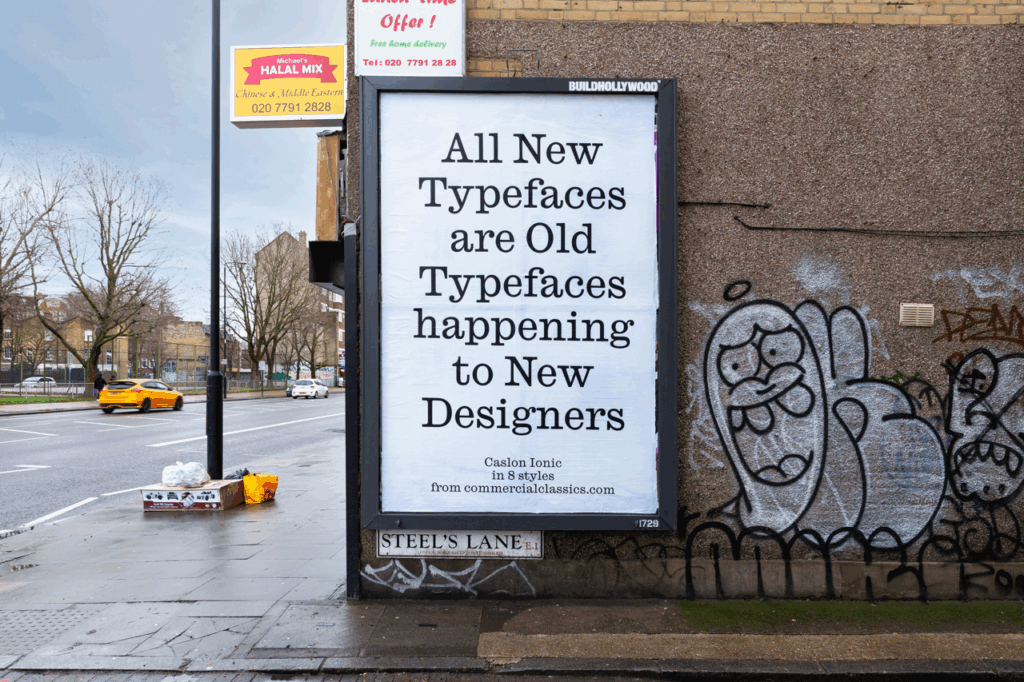
This week’s Baseline Shift session welcomed type designer and Commercial Type co-founder Paul Barnes back to the University of Reading, more than three decades after graduating from the course himself. Paul reflected on his path from studying hand lettering and letterpress printing at Reading to becoming one of the most influential contemporary type designers working today, creating typeface identities for major clients including The Guardian, Givenchy, The National Trust, Rapha and the V&A.
Early influences
Paul’s love for typography stemmed from physically constructing layouts and lettering by hand back before digital workflows became standard. Studying at Reading, much of the course consisted of letterpress printing and creating artwork manually which Paul describes as being something he enjoyed thoroughly, explaining how there is real precision involved in these production techniques that can feel quite lost within workflows today. Lectures by Michael Twyman on the history of typography and trips to study the classical inscriptions in Rome were just a handful of memories Paul reflects on that continue to shape his work today.
Typographic systems
As a graduate, Paul started in the editorial and magazine design sector at a company called Spin that he later became the art director of. The constant cycle of experimentation with text, layout, image every month was an exciting environment for him to be in. However, within magazine design, the typographic systems were the main area that interested him rather than the overall art direction. Experimentation with software such as Fontographer, allowed him to create personalised headlines and adapt existing typefaces, developing an interest in consistency and structure within typography.
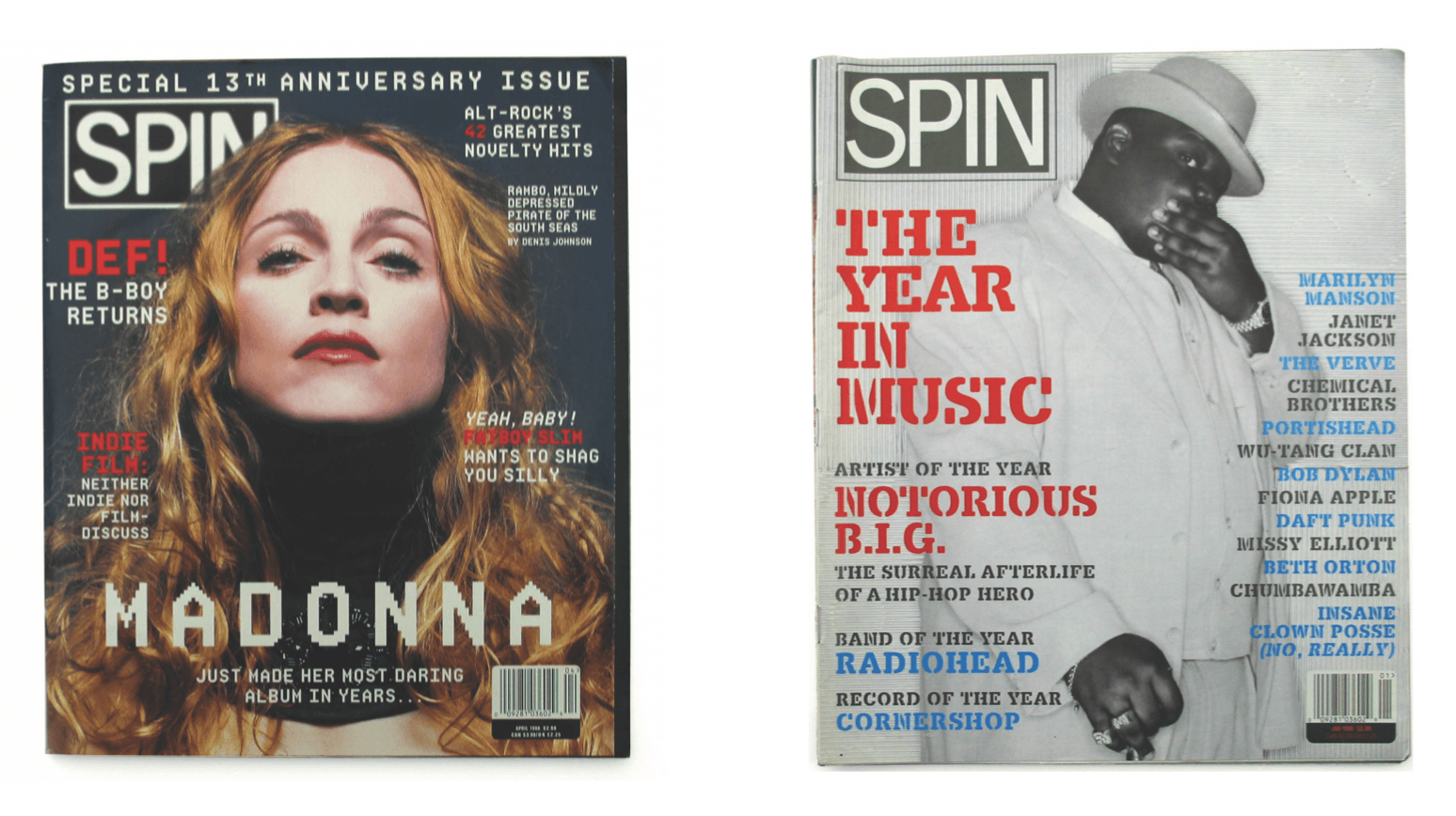
Creation of Commercial Type
One of Paul’s earliest defining moments was his work on The Guardian redesign in the early 2000s. Working with Christian Schwartz, together they developed the typeface Guardian Egyptian, a custom slab serif family created during the newspaper’s transition to the Berliner format. The typeface gave a distinctive visual identity that showcases the move from fine serif styles and bold headline typography that remains so recognisable today.
Upon completing the project, both Paul and Christian knew that ownership of the typeface would return to them after the Guardian’s exclusivity period ended. So instead of keeping it as a one-off commission, they decided to treat this as a starting point for creating Commercial Type. The aim in creating their own company was to balance both commissioned projects with a growing retail library of typefaces, allowing the pair to work across commercial branding systems and more experimental typographic projects.
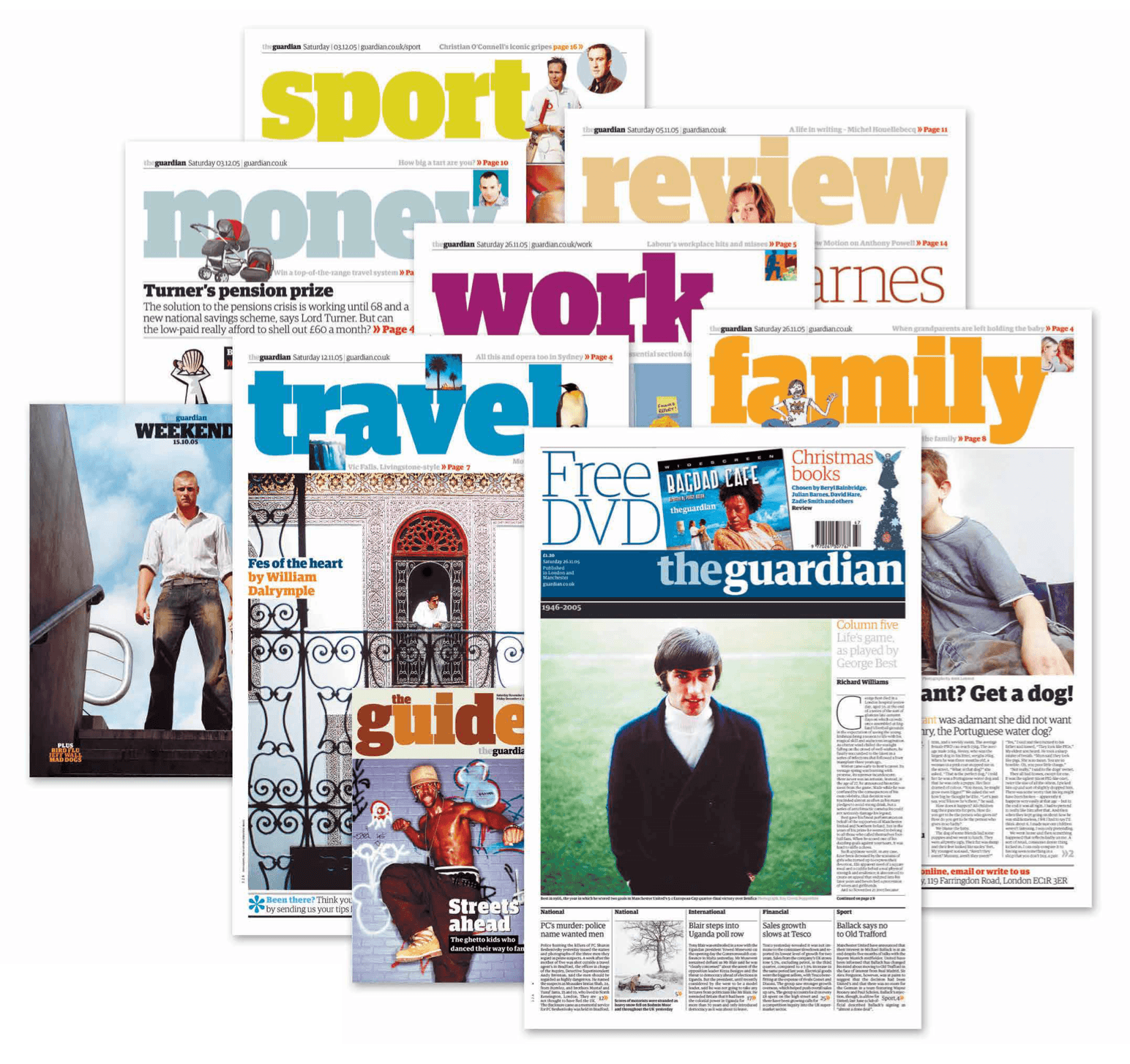
Historical typography
Throughout the talk, Paul kept coming back to the fascination of nineteenth-century typography that included old playbills, specimen books and printing archives which was the first moment where typography started to become expressive with weights and size as the printing techniques evolved. Commercial Classics was an element Paul spoke about, a section that focused on reviving the forgotten nineteenth-century typefaces that disappeared over time. Paul’s intention with these forgotten typefaces is not to reproduce the historical forms, but to create a balance between research and interpretation, starting from incomplete alphabets or collections found in archives like the St Bride Library in London.
Variable fonts and The V&A
During the pandemic, Paul was asked to lead the redevelopment of the V&A’s typographic identity, prompting him to explore variable fonts and how they could create consistency across the museum’s network of locations. The typeface Spiller was created as a system featuring variations of the same typographic structure to represent each venue. Designed with variable widths and contrast options, Spiller was able to adapt across applications such as signage, advertising, and gallery interpretation while maintaining a consistent identity. Paul’s aim was to combine contemporary digital technology with historical references, creating a nineteenth-century typeface while keeping the form appropriate for readability in exhibition spaces.
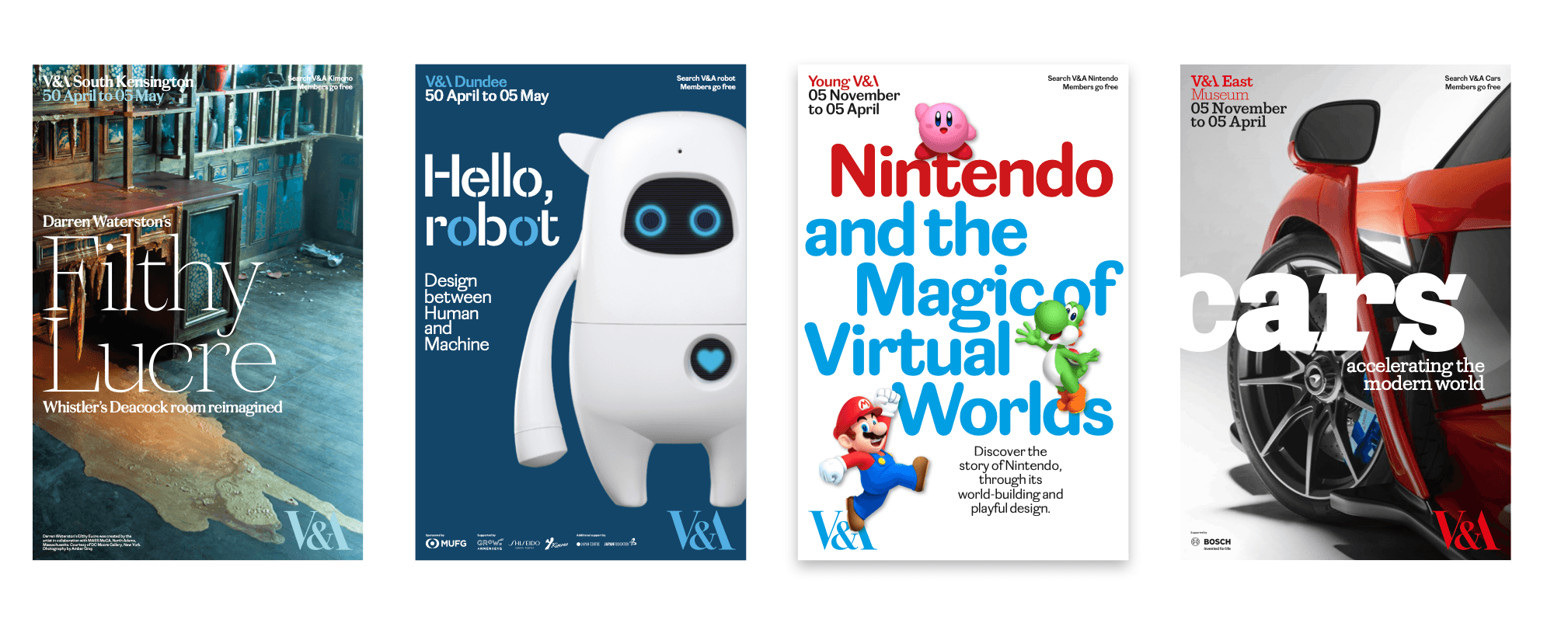
Designing for cycling culture
Another branding project Paul worked on was for Rapha, the high-fashion cycling brand. He was initially brought in to simplify the typography across the company’s visual identity. Due to licensing issues with existing typefaces, a new custom typeface called Frame was developed. Based on historical Caslon features, Frame incorporated a larger x-height and sharper detailing to improve readability across the brand’s platforms. Paul explained how even small typographic adjustments can significantly affect how a typeface performs across digital layouts.
The project later expanded into a wider promotional campaign, with large-scale signage used to promote the new typefaces around major cycling races across Europe. Reflecting on the campaign, Paul joked that “you need to promote the promotion”, highlighting how typography within branding systems must also function effectively in public spaces.
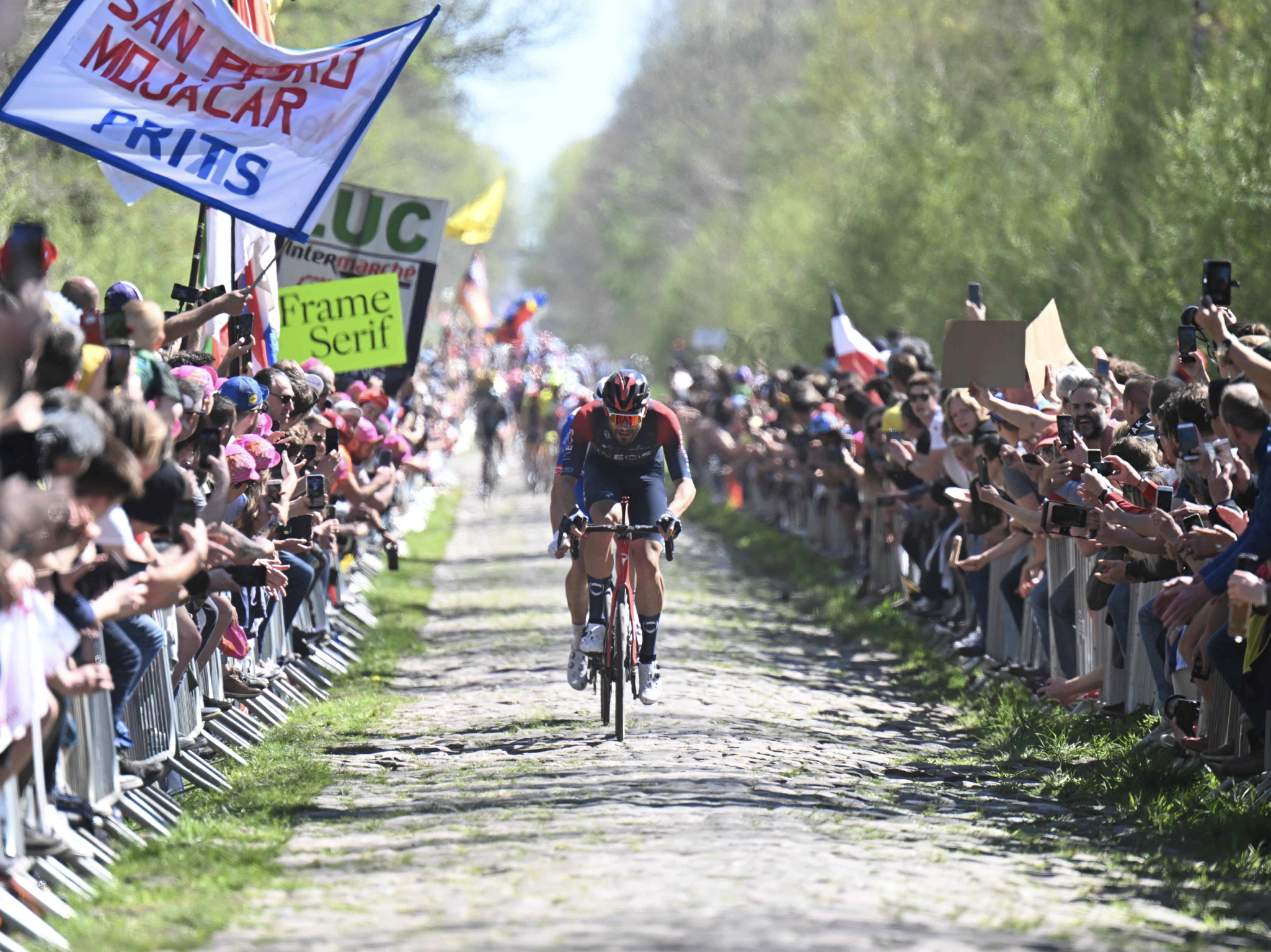
Jan Tschichold exhibition
Towards the end of the session, Paul described how, while studying at Reading, he became fascinated by Jan Tschichold’s approach to lettering, layout, and clarity. Over time, he built up an extensive personal collection of Tschichold’s publications. This interest later developed into an exhibition created with fellow Reading graduate Fraser Muggeridge, showcasing Tschichold’s typography and archival material. For the project, they digitised historical lettering and recreated posters using traditional letterpress techniques. Many of Tschichold’s unfinished designs and typographic experiments had never been fully developed, so Paul used this opportunity to extend and reinterpret the work using contemporary technology.
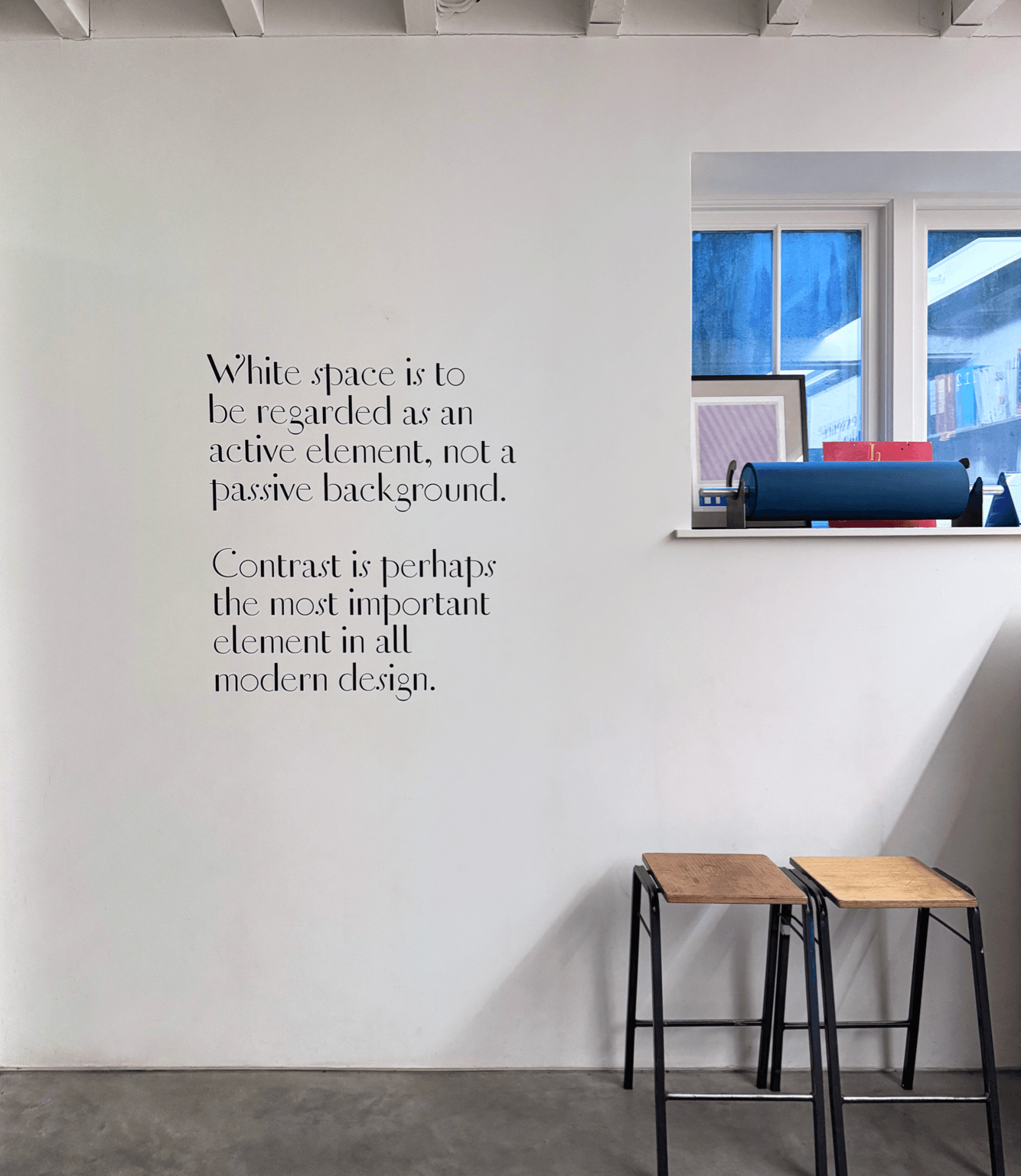
Advice for young designers
- Continue to explore different areas of design rather than specialising too early
- Build relationships and stay connected with people throughout your career as opportunities often develop over time
- Focus on consistency and attention to detail
- Be open to different ways of working and continue adapting as technology and design industries evolve